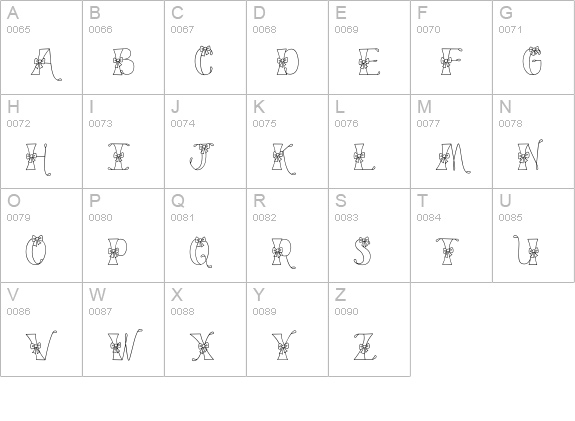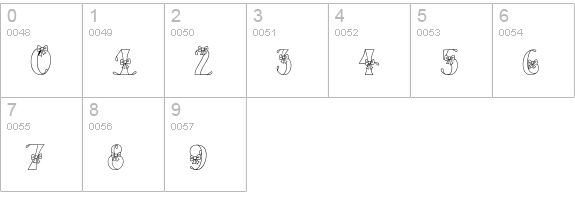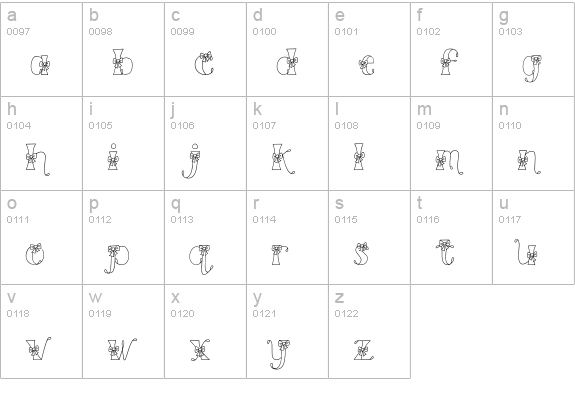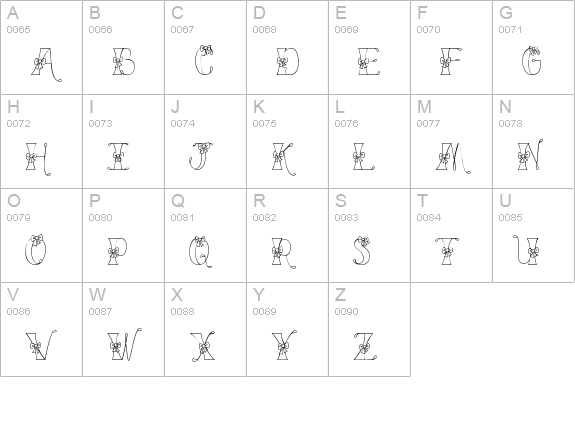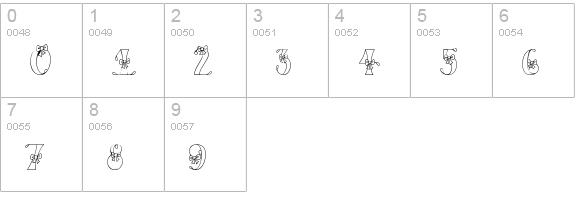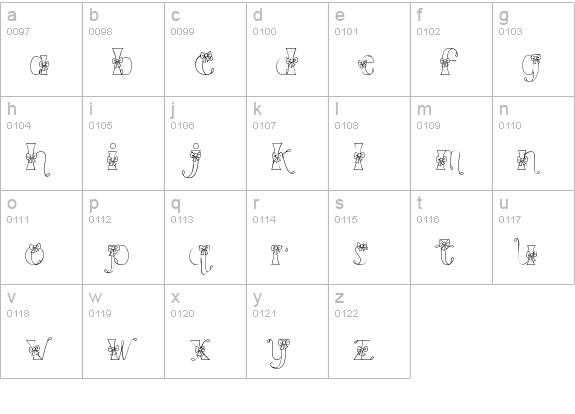
CK Sweet Bows Font Details
Introducing CK Sweet Bows font, a charming and whimsical typeface that will add a touch of sweetness to your designs. This delightful font features playful bows adorning each character, creating a fun and unique look perfect for various creative projects. CK Sweet Bows font is sure to capture the hearts of those who appreciate cute and cheerful designs. Whether you're working on invitations, greeting cards, posters, or any other project that needs a dash of cuteness, this font will definitely make your text stand out. Best of all, CK Sweet Bows font is available for free download at FontsMarket.com. So, don't miss out on this adorable typeface and add a sprinkle of fun to your designs today!